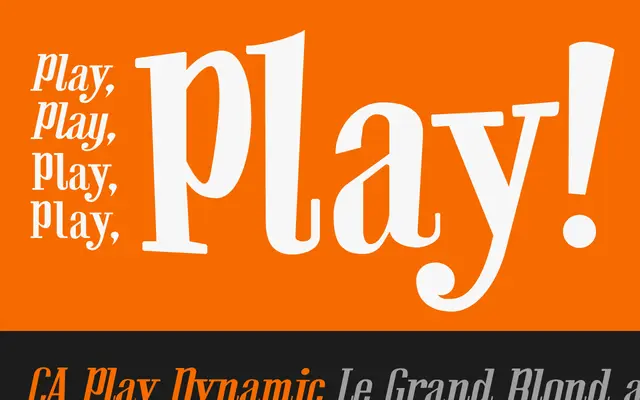
CA Play
Cape Arcona · Stefan Claudius
A five-style casual script family with handwritten warmth, ranging from clipped roman cuts to fully connected flowing forms with a mid-century European poster feel.
The family splits across five distinct styles: Real carries long flowing tails for a looser handwritten quality, Roman trims them for text legibility, Script connects letters into a continuous flow, Wild pushes expressive looseness further, and Dynamic offers a straightforward italic slant. Wild and Script in particular carry a strong retro charge, recalling European film posters and title sequences from the 1950s and 60s. With 208 glyphs and Western encoding, it suits film and TV work, poster design and on-screen text that needs period-appropriate personality.
The foundry classifies it as Display Script; the family spans semi-connected casual scripts and italic variants with a handwritten, retro-inflected character across its five styles.